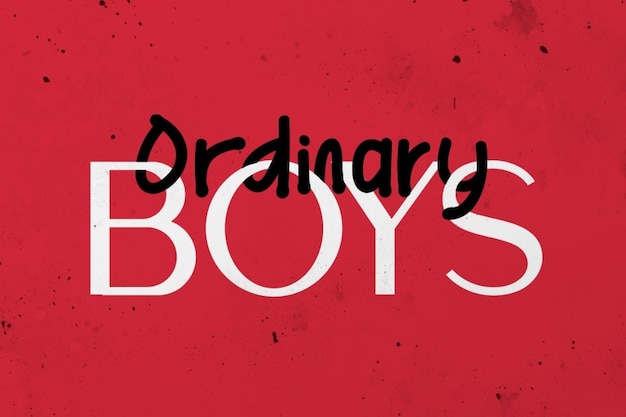
Ordinary Boys
Ordinary Boys Font
"Ordinary Boys" is a sophisticated font that beautifully marries classic elegance with a modern twist. Its refined letterforms exude a timeless charm, making it perfect for upscale branding, invitations, and editorial designs. This font captures the essence of classy aesthetics, adding a touch of luxury to any project while ensuring readability and style in every application.